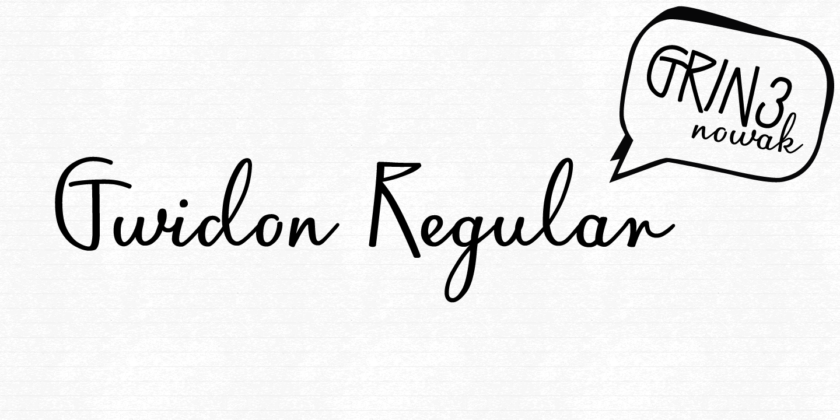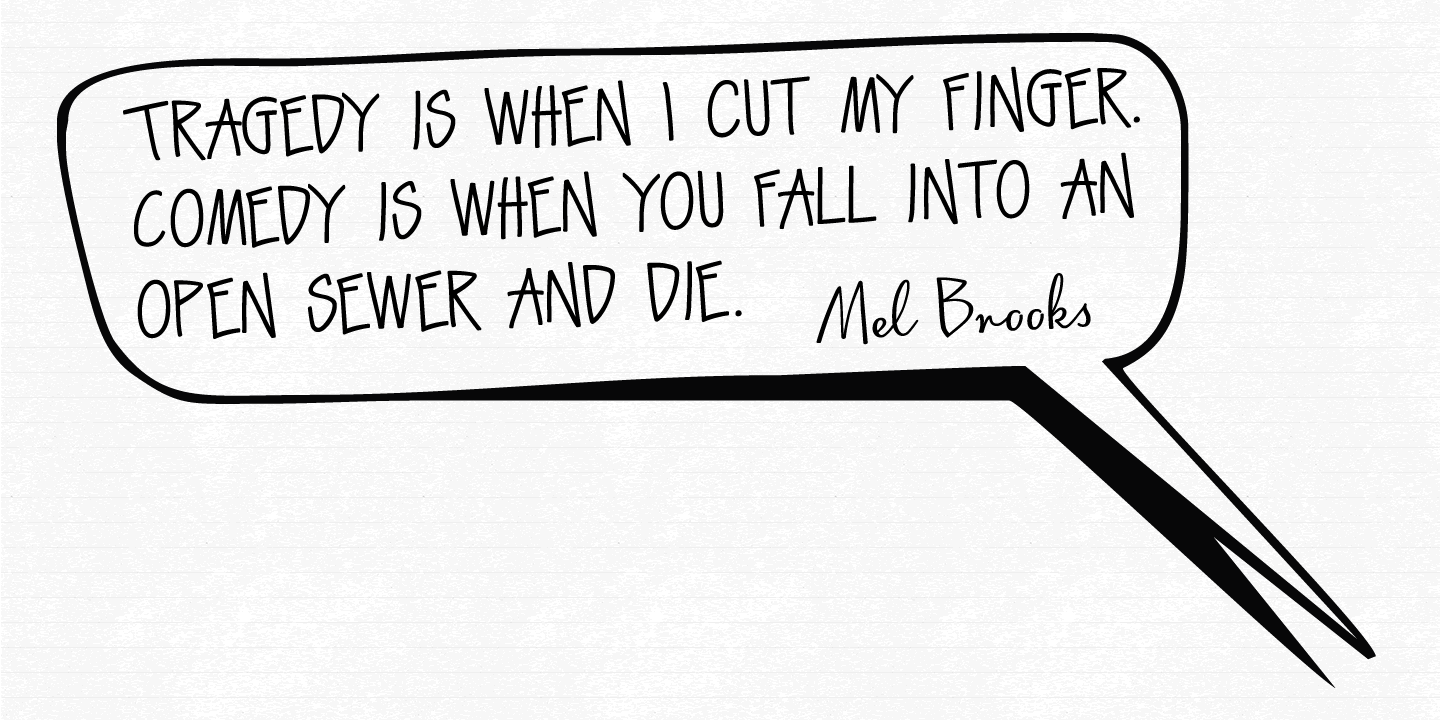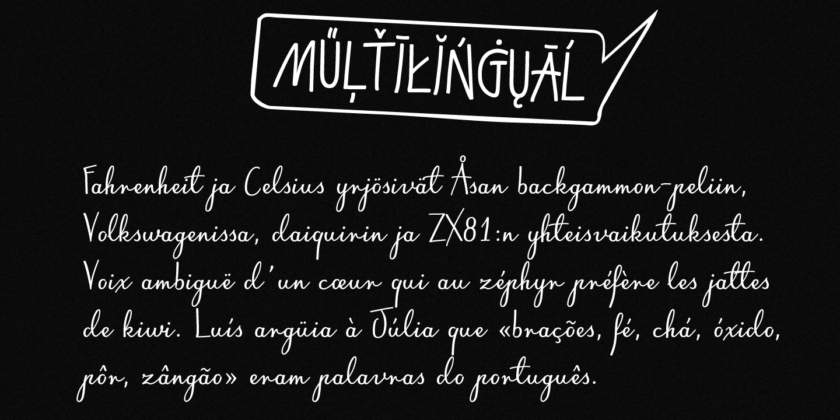
About Gwidon
Gwidon is a family of three quite distinct fonts that perform together very well. Gwidon Regular and Gwidon Line are elegant, fully connected scripts with ligatures to help with flow and readability. Gwidon Caps is all capital letter font which include…